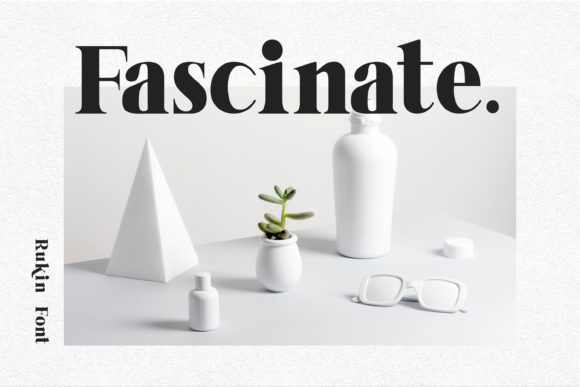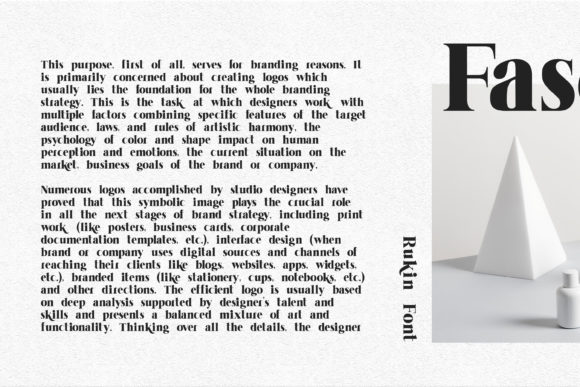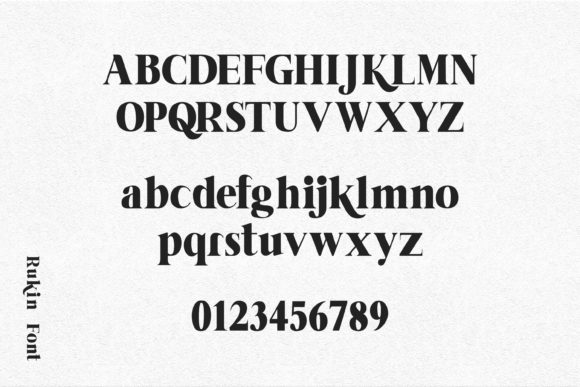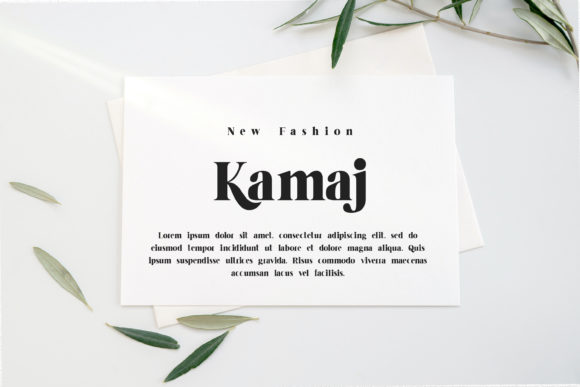
Introduction to Rukin Font
Have you ever stared at a blank canvas, searching for the perfect font to bring your creative project to life? The struggle is real, especially when you’re looking for a bold and eye-catching font that truly stands out. That’s where the Rukin Font comes in – a game-changing design resource that’s about to become your new go-to.
Imagine having a font that’s as imposing as it is elegant, with thick lettering that demands attention without overwhelming the senses. The Rukin Font is that and so much more, offering a unique blend of style and sophistication that’s perfect for designers looking to add a distinct touch to their work.
Key Features of Rukin Font
- Consists of 100 unique characters, including uppercase and lowercase letters, numbers, and punctuation
- Perfect for use in logos, branding, and other design elements where a unique and stylish font is required
Honest Review: Rukin Font
I recently had the chance to work with the Rukin Font on a creative project, and I have to say, it’s been a game-changer. As a designer, I’m always on the lookout for high-quality design resources that can elevate my work, and the Rukin Font certainly delivers.
- ✨ One of the standout features of the Rukin Font is its transparent background, which makes it incredibly versatile and easy to use. I’ve been able to incorporate it seamlessly into my designs without worrying about any background distractions.
- ✨ Another thing that works well is the font’s clean and modern aesthetic. It’s perfect for creating a sleek and sophisticated look that’s sure to impress.
Tips for Getting the Most Out of Rukin Font
To get the most out of the Rukin Font, experiment with different font sizes, colors, and combinations to create unique and visually appealing designs.
The Rukin Font is perfect for creative projects such as graphic design, digital art, and typography-based designs. It’s also great for adding a stylish element to presentations, documents, and websites.